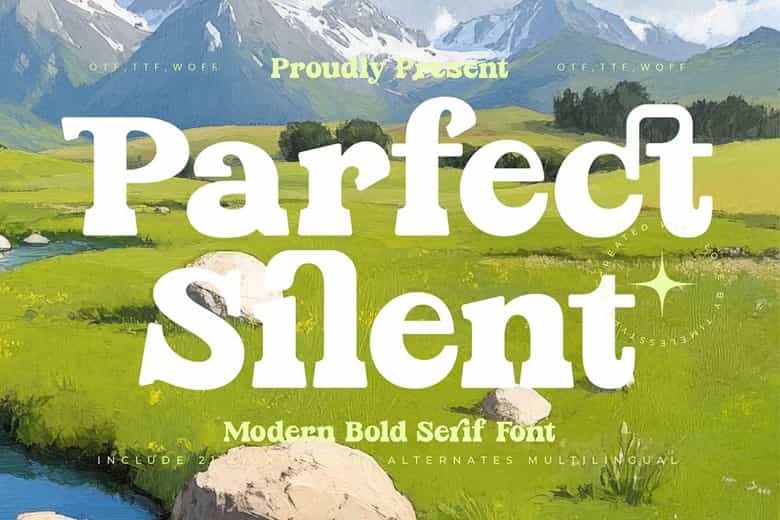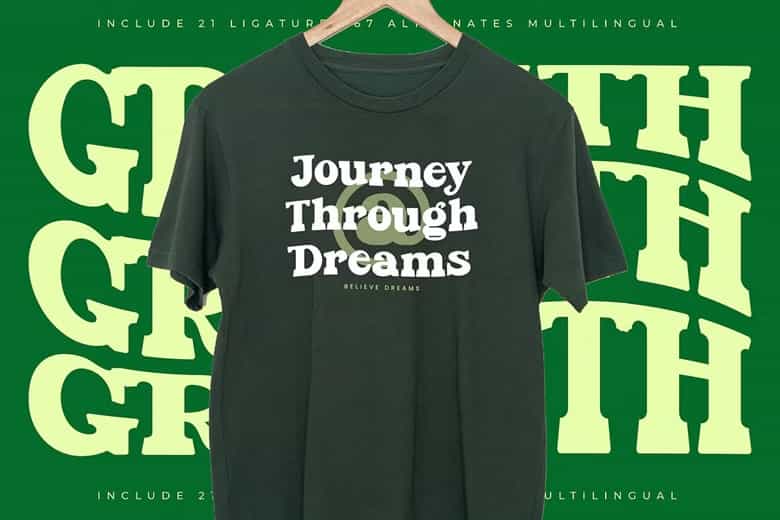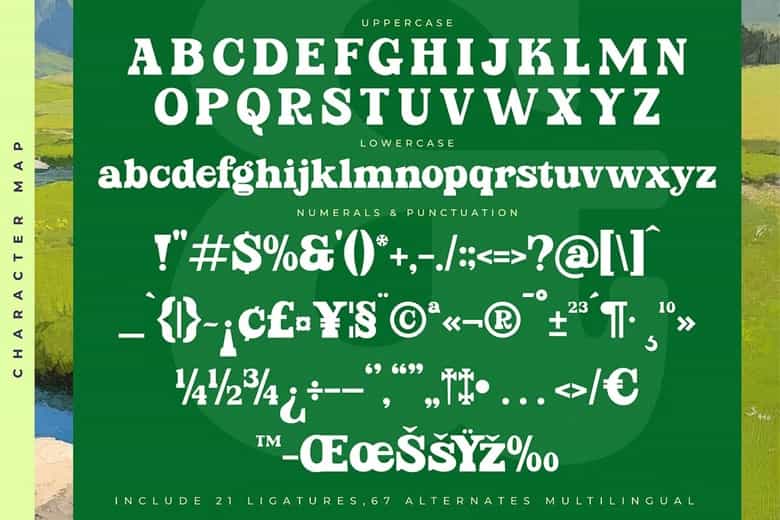
Parfect Silent is a modern bold slab serif typeface, from Timelesstype.Co , Suitable for any projects such as: logos, branding projects, homeware designs, product packaging, mugs, quotes, posters, shopping bags, t-shirts, book covers, name card, invitation cards, greeting cards, label, photography, watermark, special events and all your other elegant and luxurious projects.